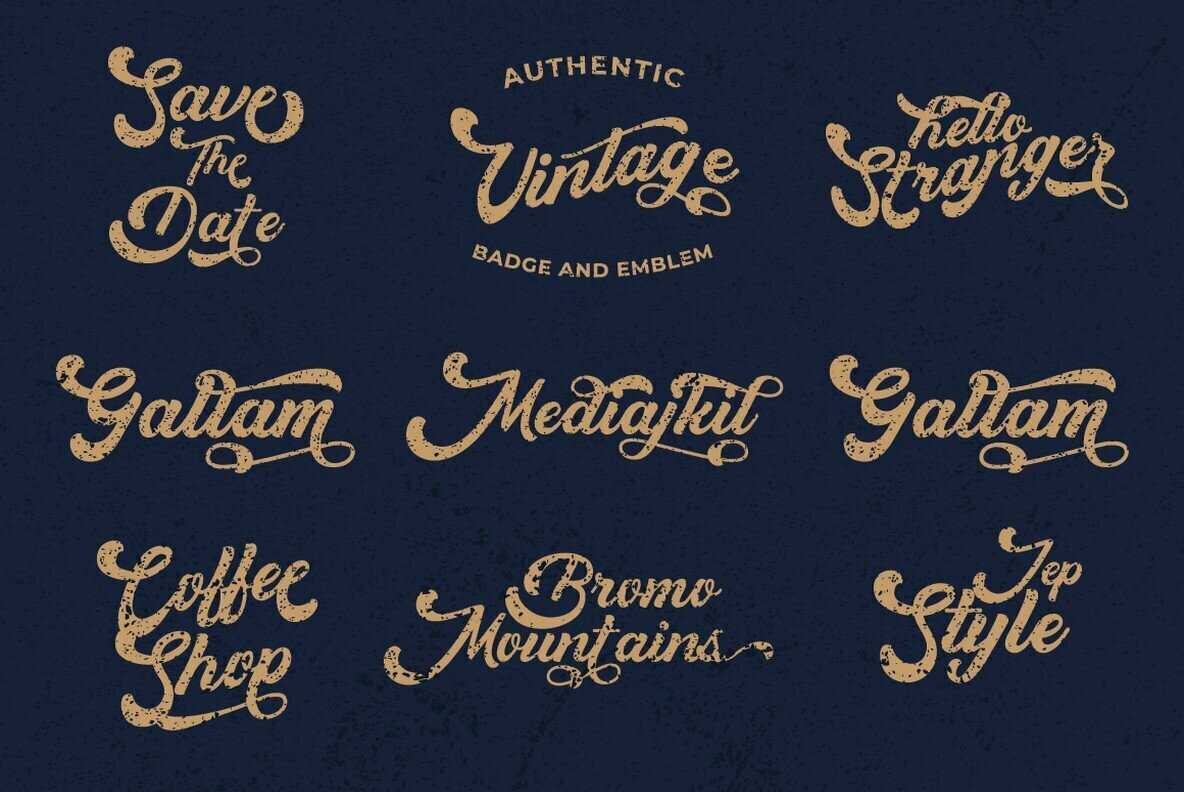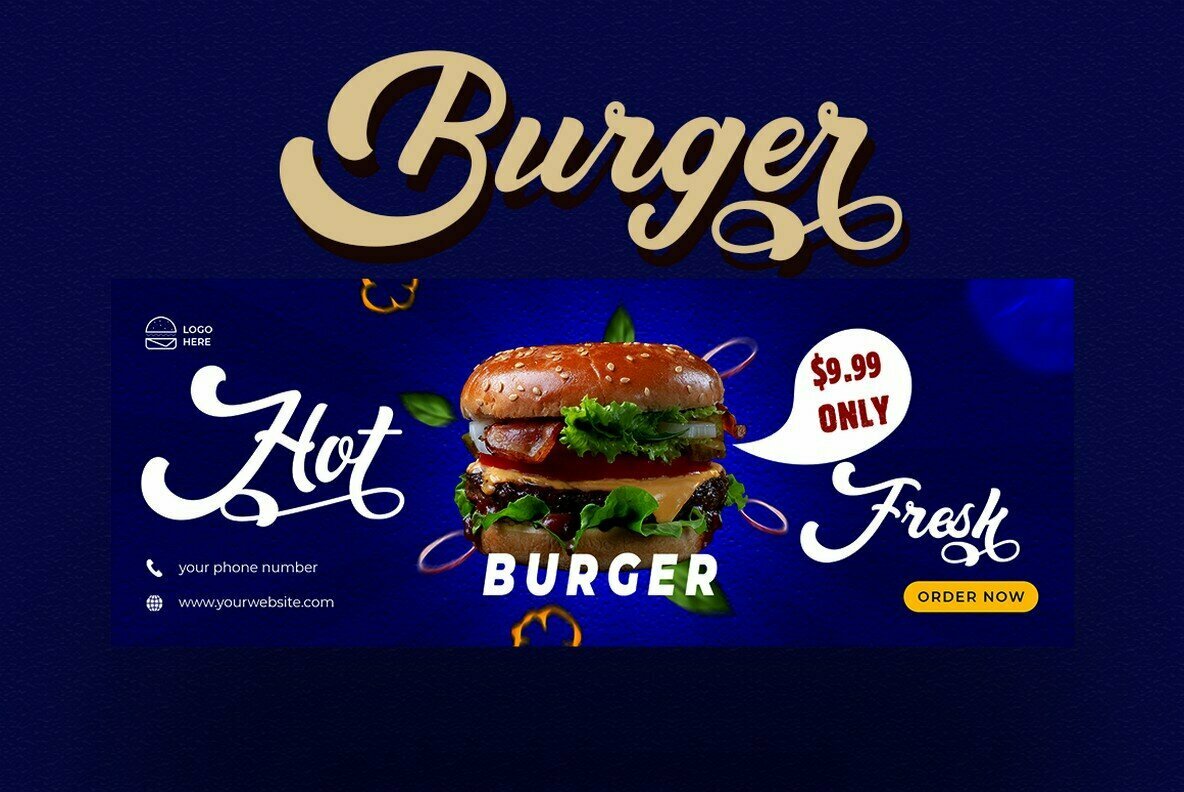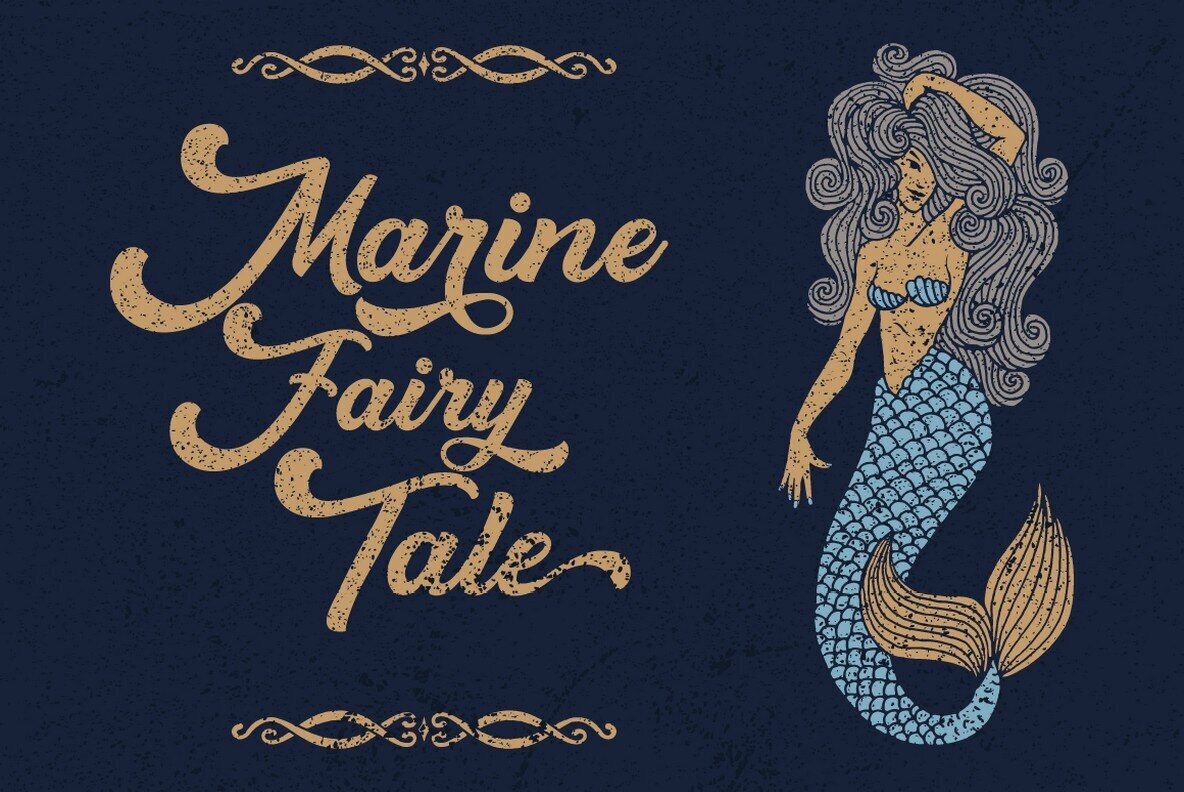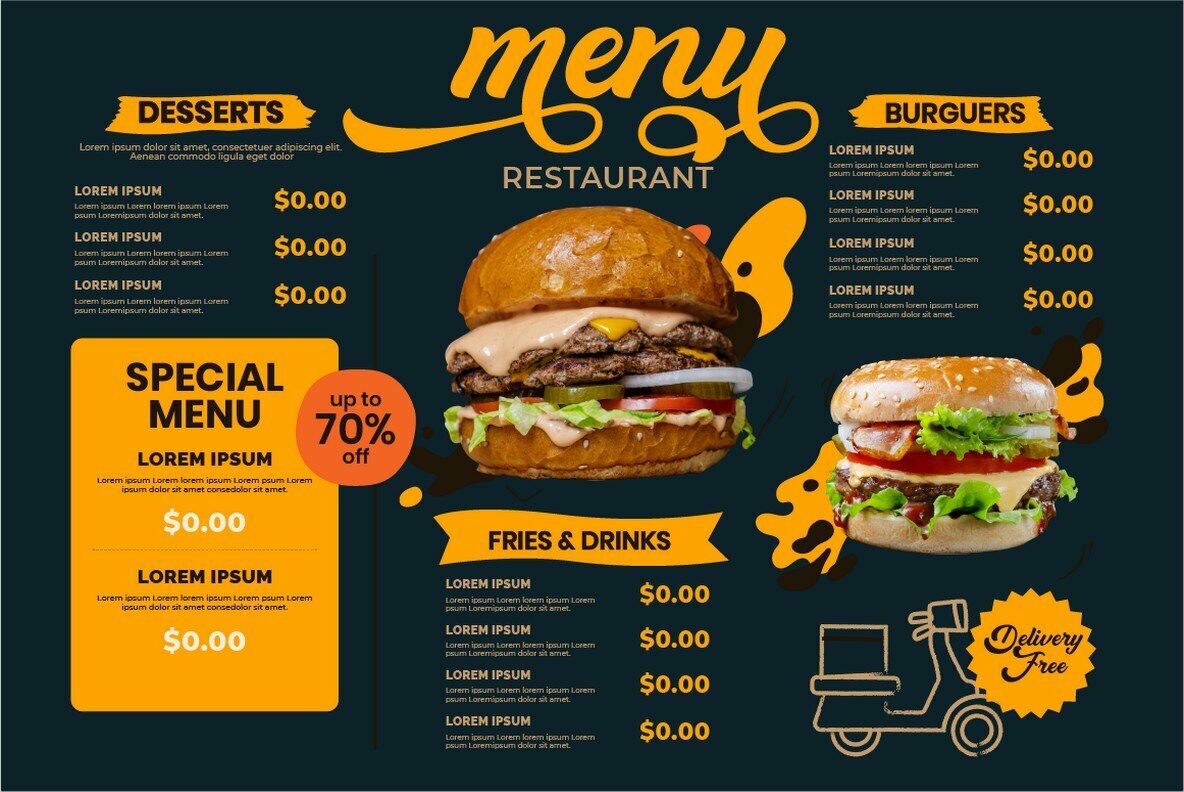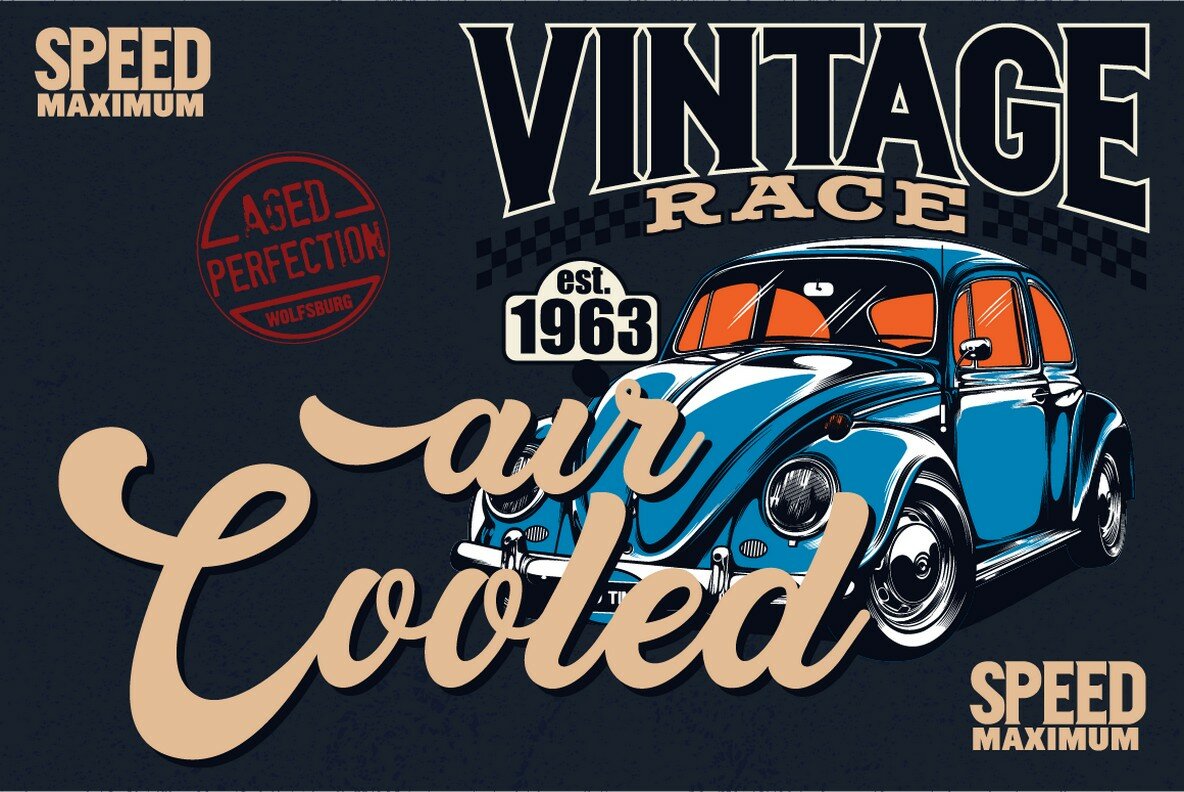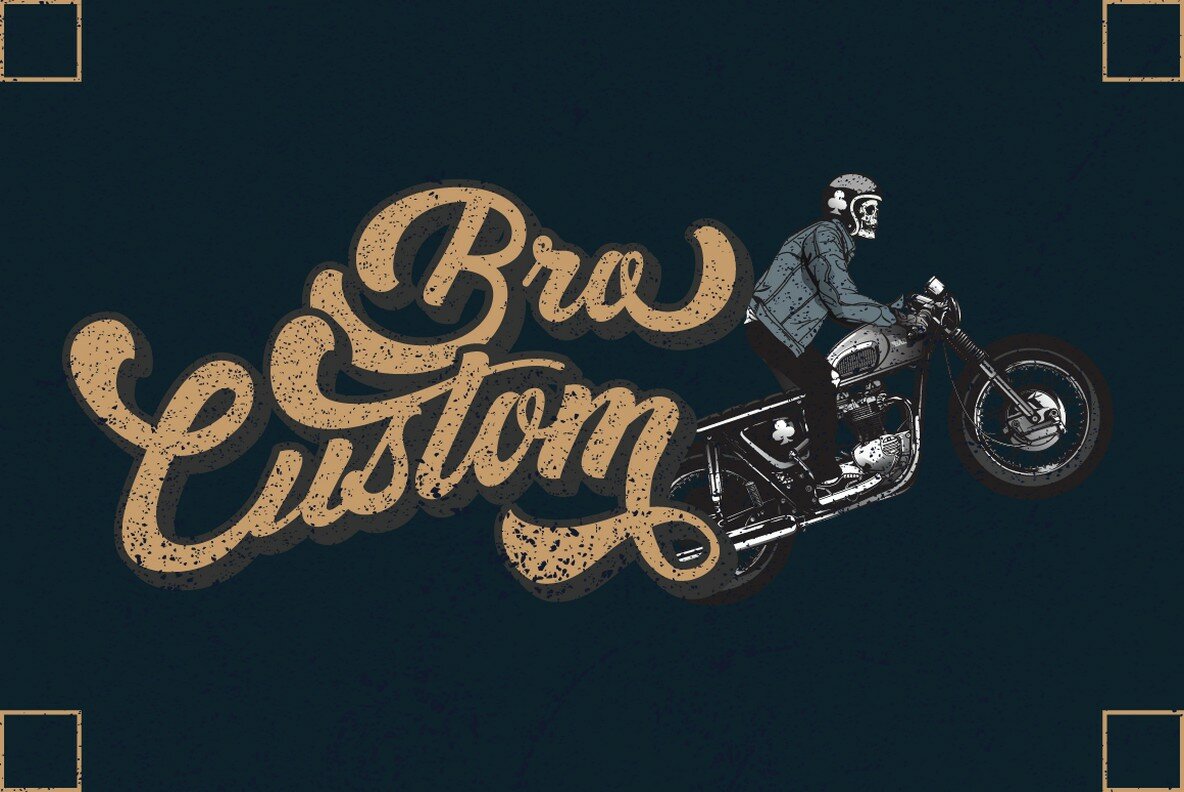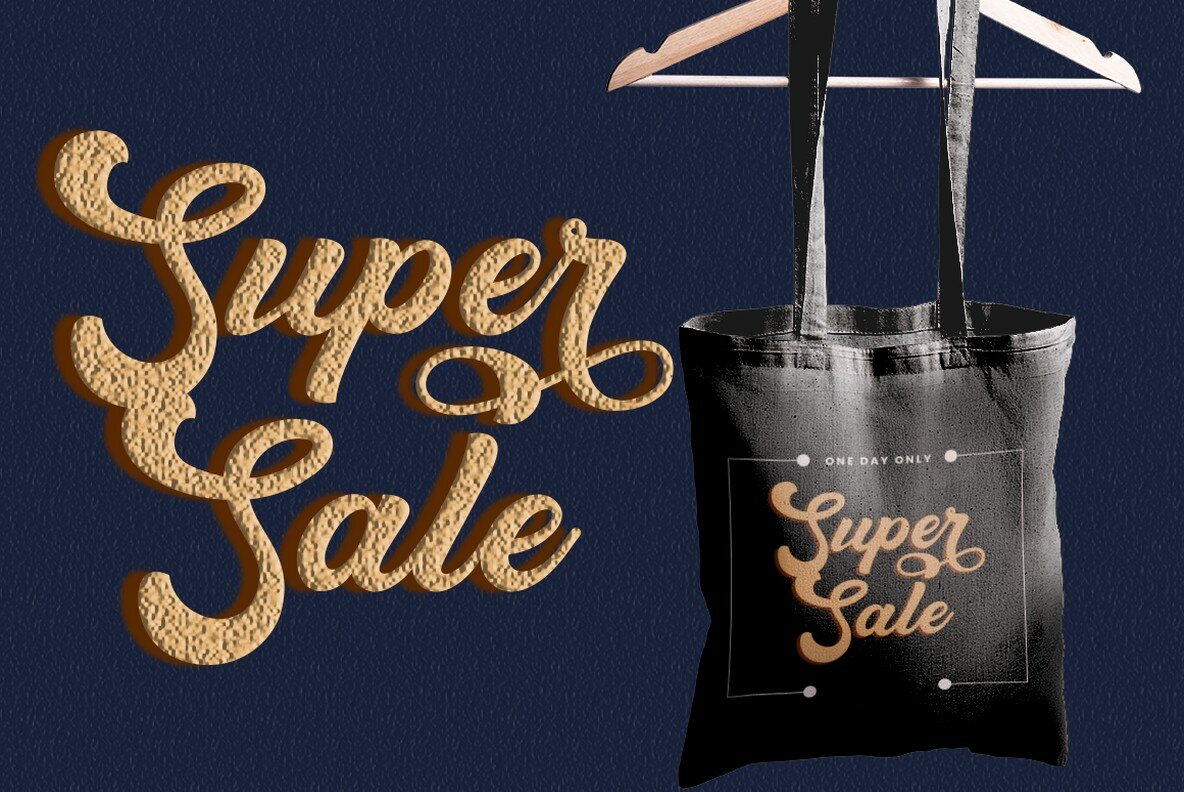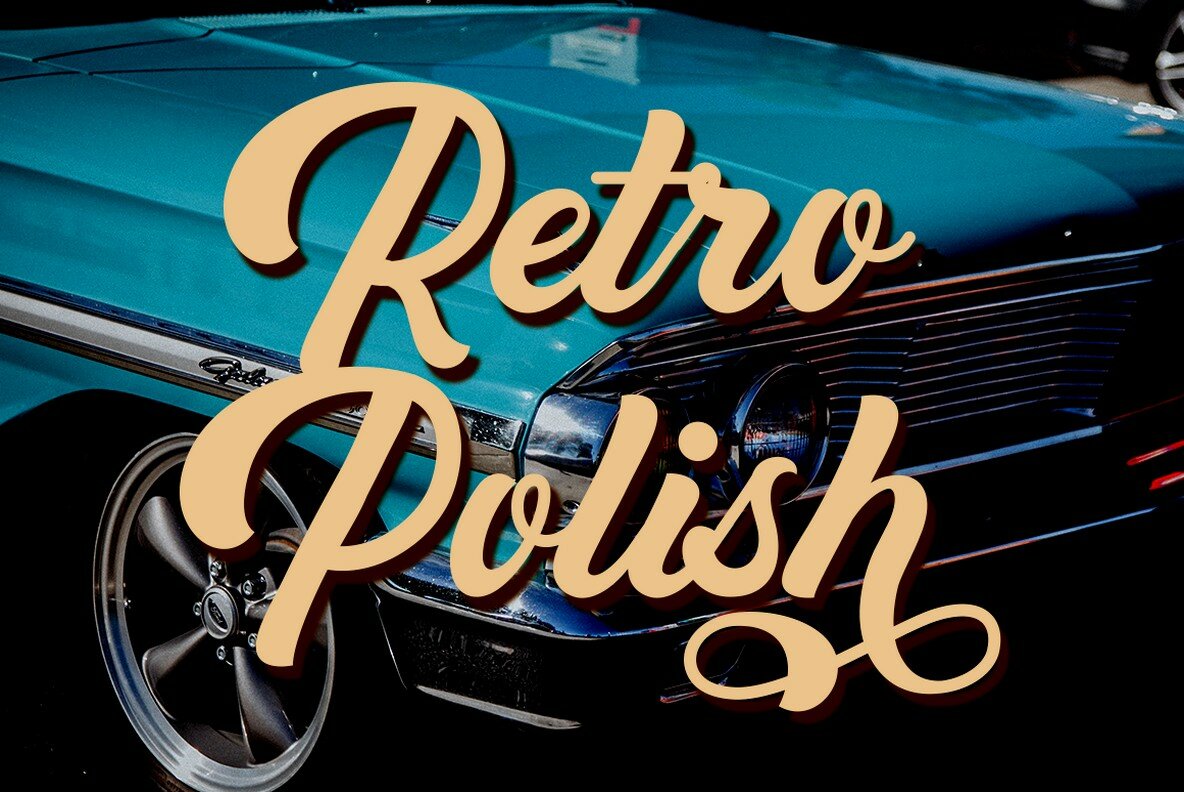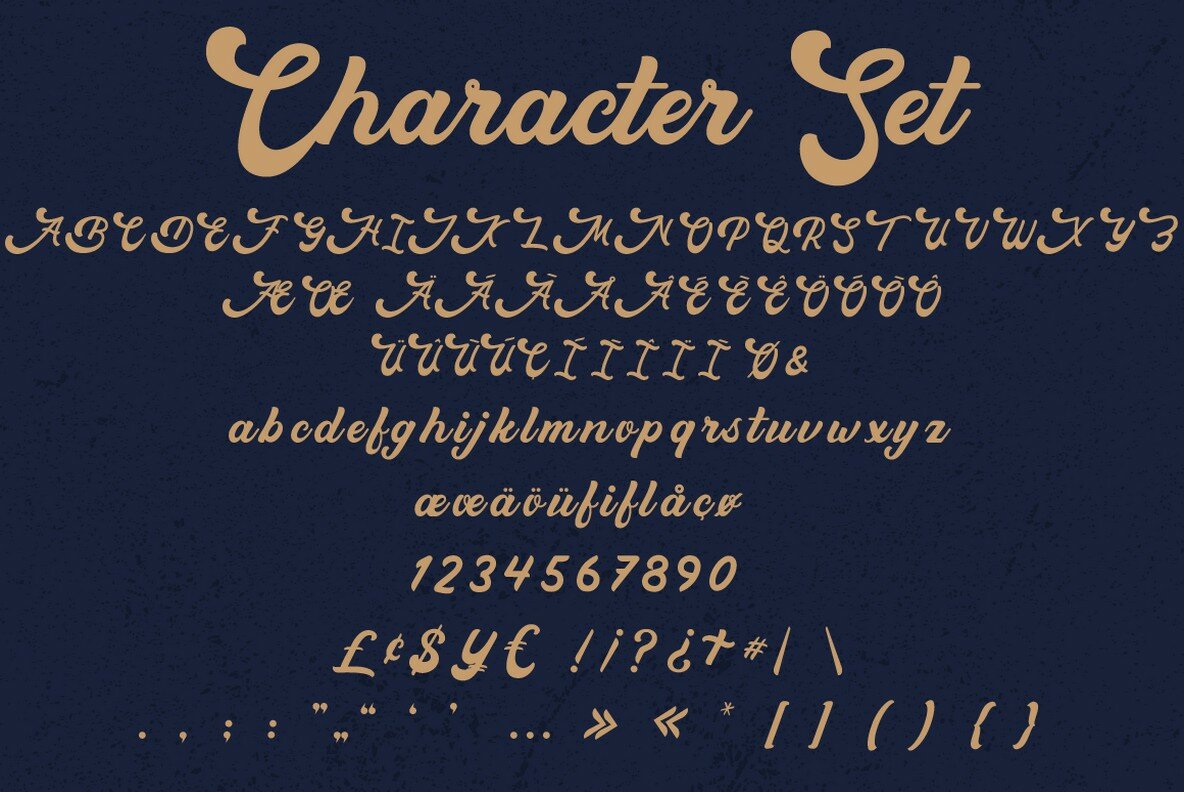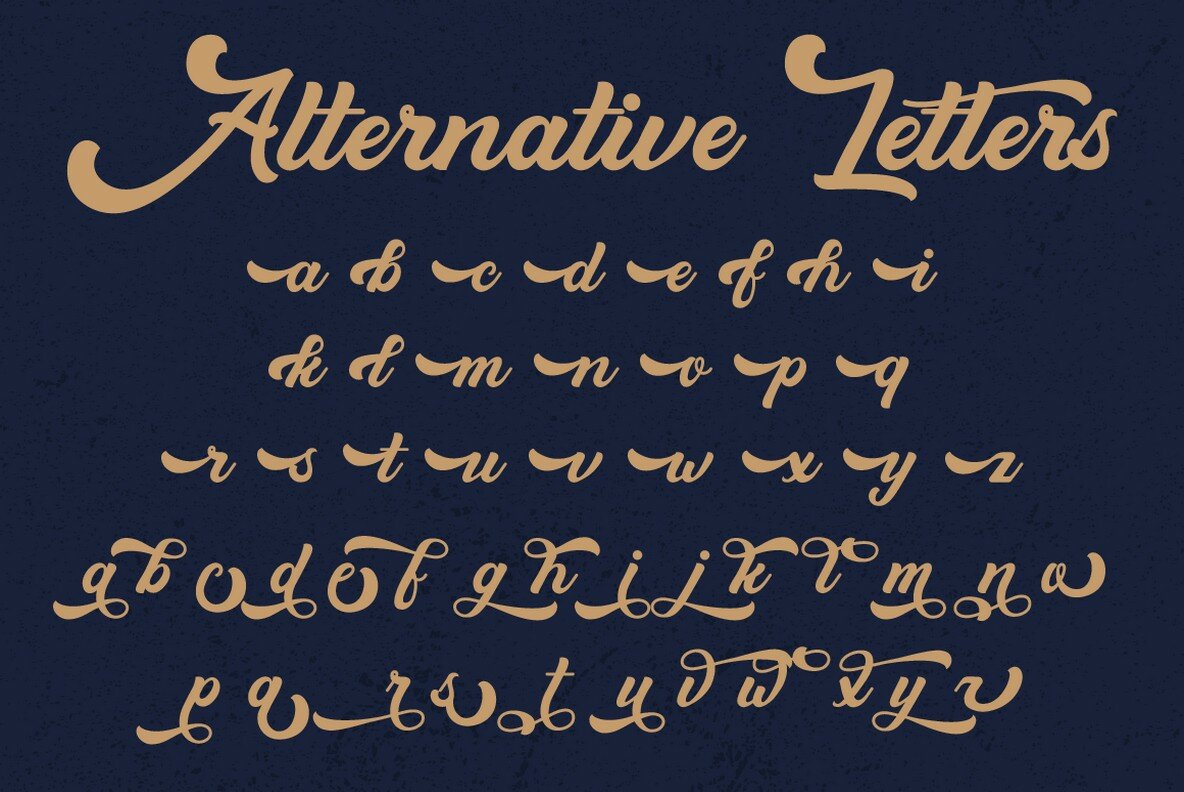
Macrosty Font
Macrosty
Macrosty stands as a testament to the elegance of vintage script fonts, ideal for projects seeking a retro or vintage aesthetic. With its classic feel, this typeface brings a sophisticated touch to any design, making it a perfect choice for creatives aiming to capture a timeless allure. Macrosty is well-suited for diverse applications including logotypes, apparel, invitations, magazines, branding, packaging, advertising, and more. Its versatile nature and vintage charm make it an indispensable asset in both digital and print projects.Macrosty: Vintage Script Font for Timeless Design